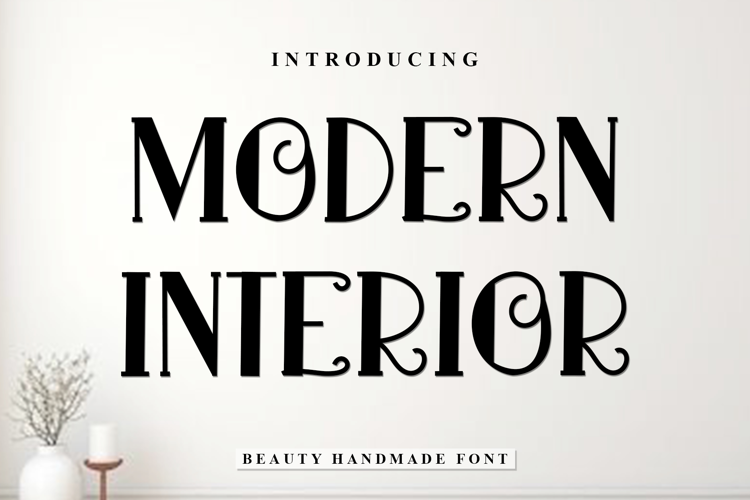
Modern Interior
Modern Interior is a beautiful and eye-catching font designed with a soft, unique touch. Its distinctive strokes give it a special character, making it meaningful and versatile for future use. With various characters, it’s perfect for design projects, crafts, and other creative works.